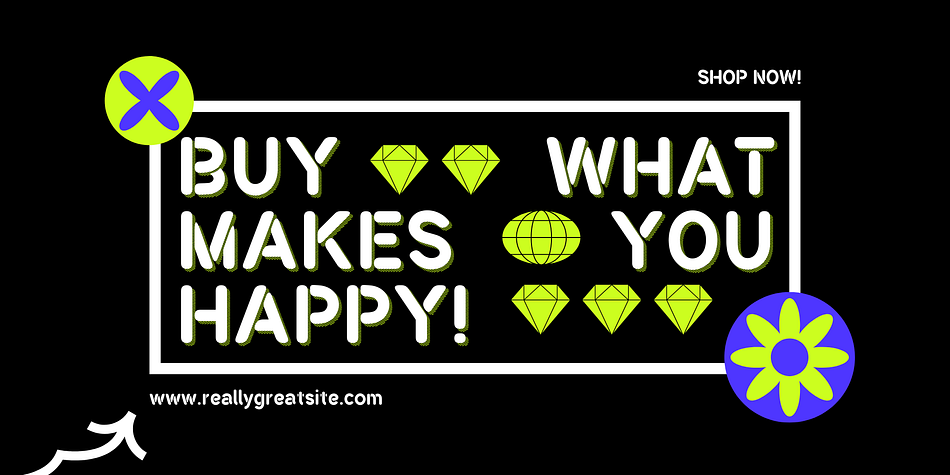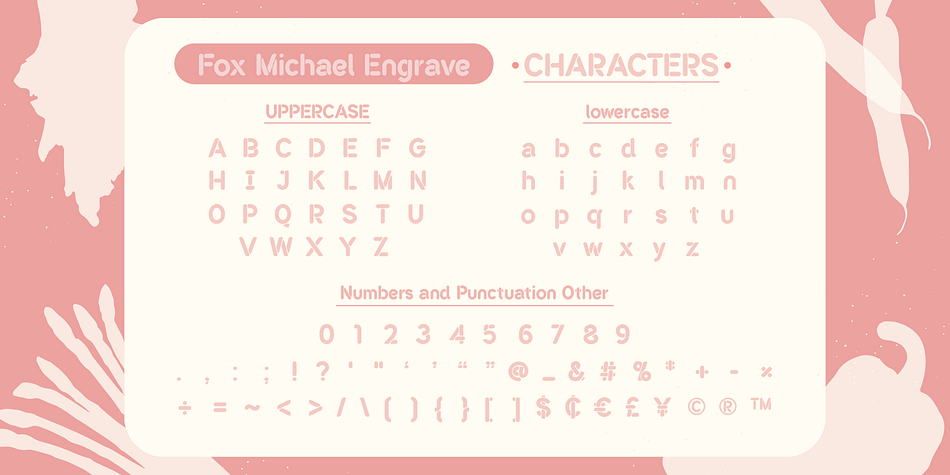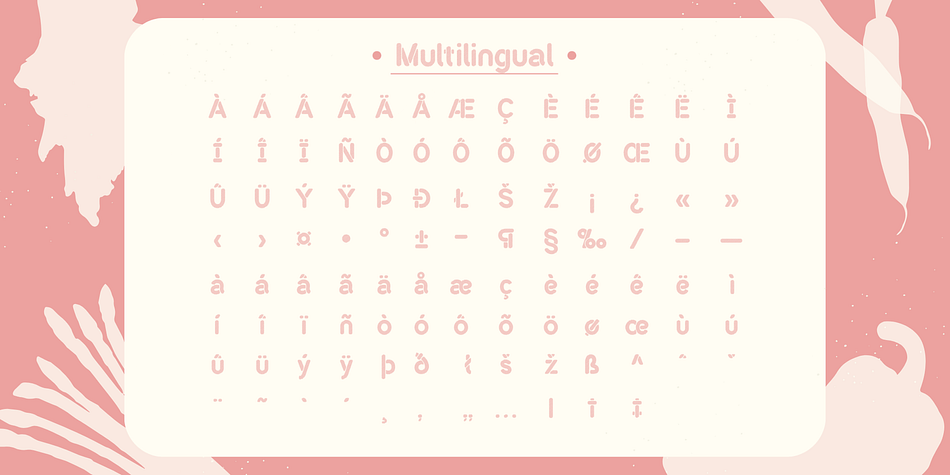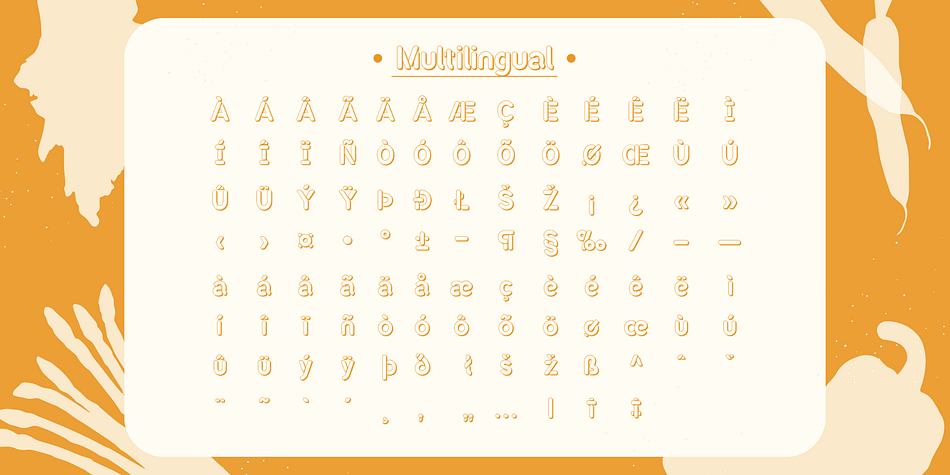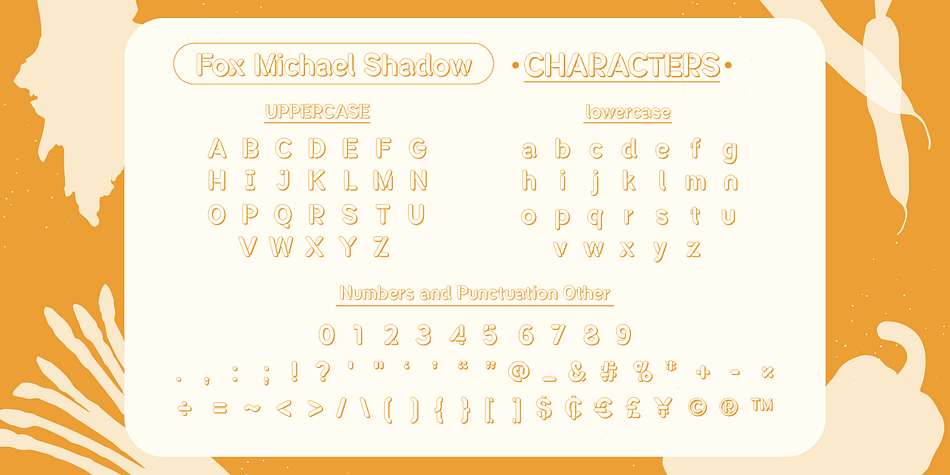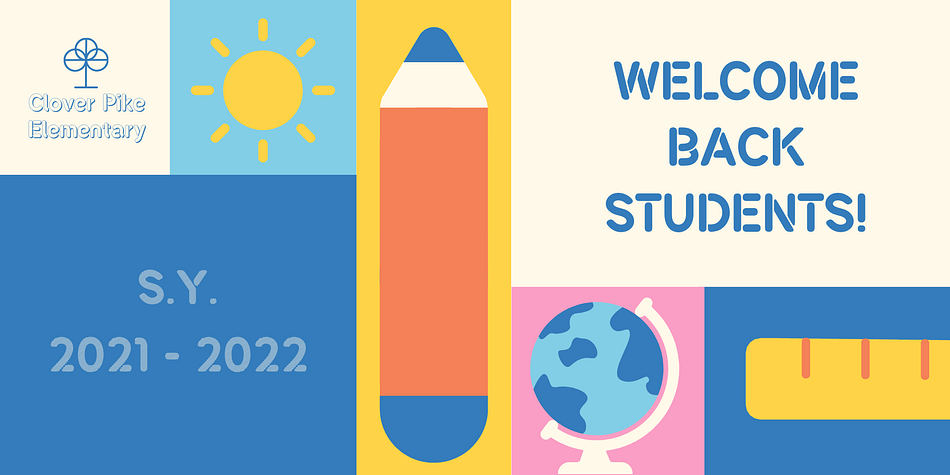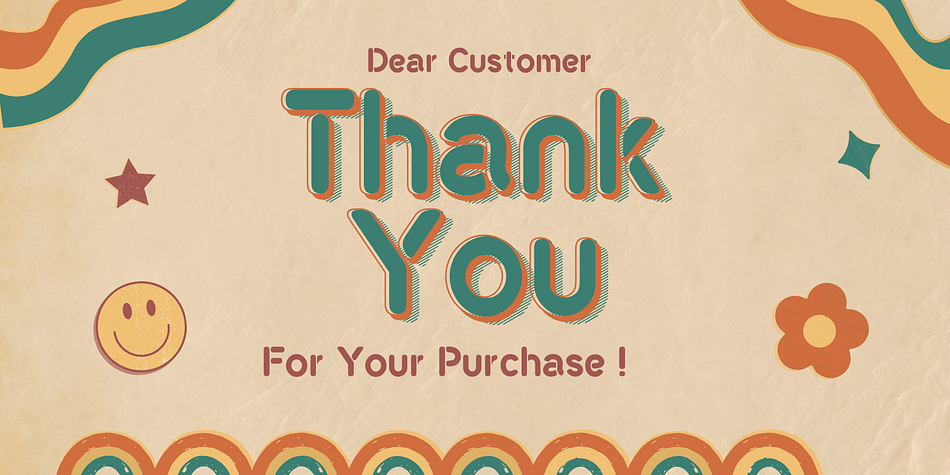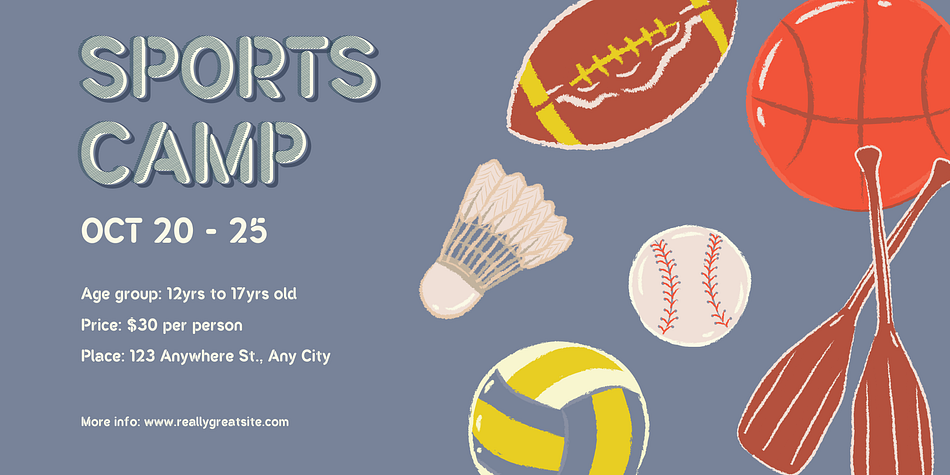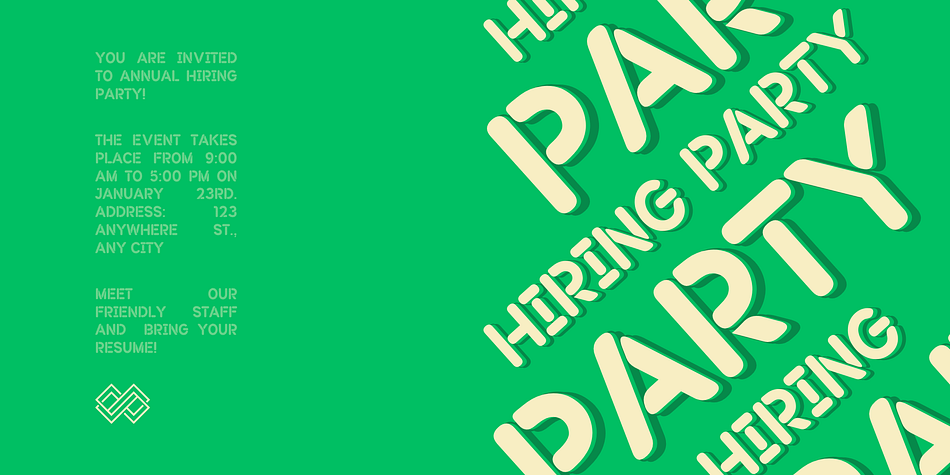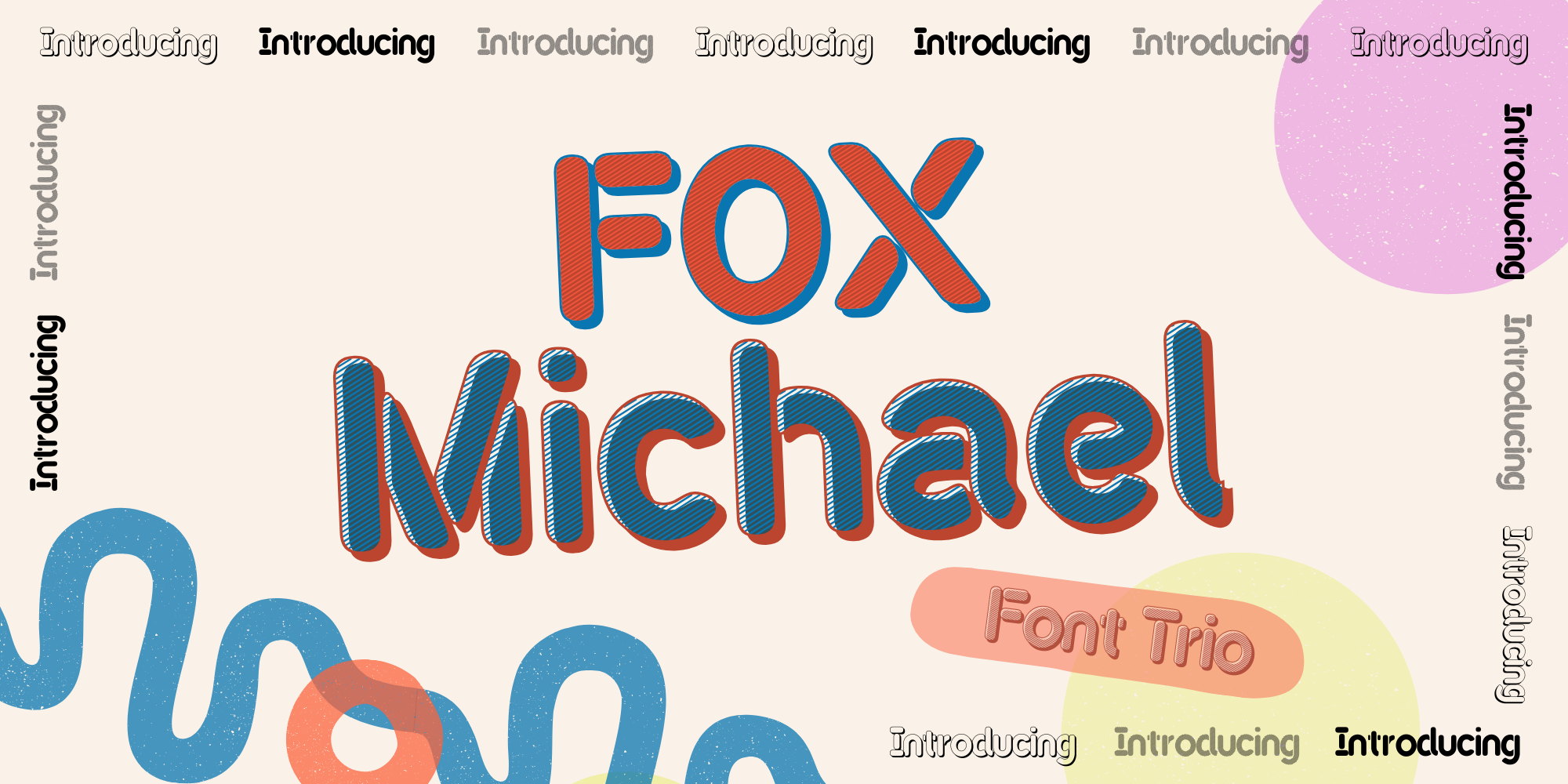
Fox Michael
Designed by Rattana Rattanawan, Fox Michael is a stencil font family. This typeface has three styles and was published by Fox7.
Fox Michael is a font created in 3 styles a charming and inviting cool typeface. Perfect for use in publications, menus, logos, business cards, or even printed on t-shirts, these fonts exude uniqueness. They stand out in everything, regardless of the subject matter. A valuable addition to your font library